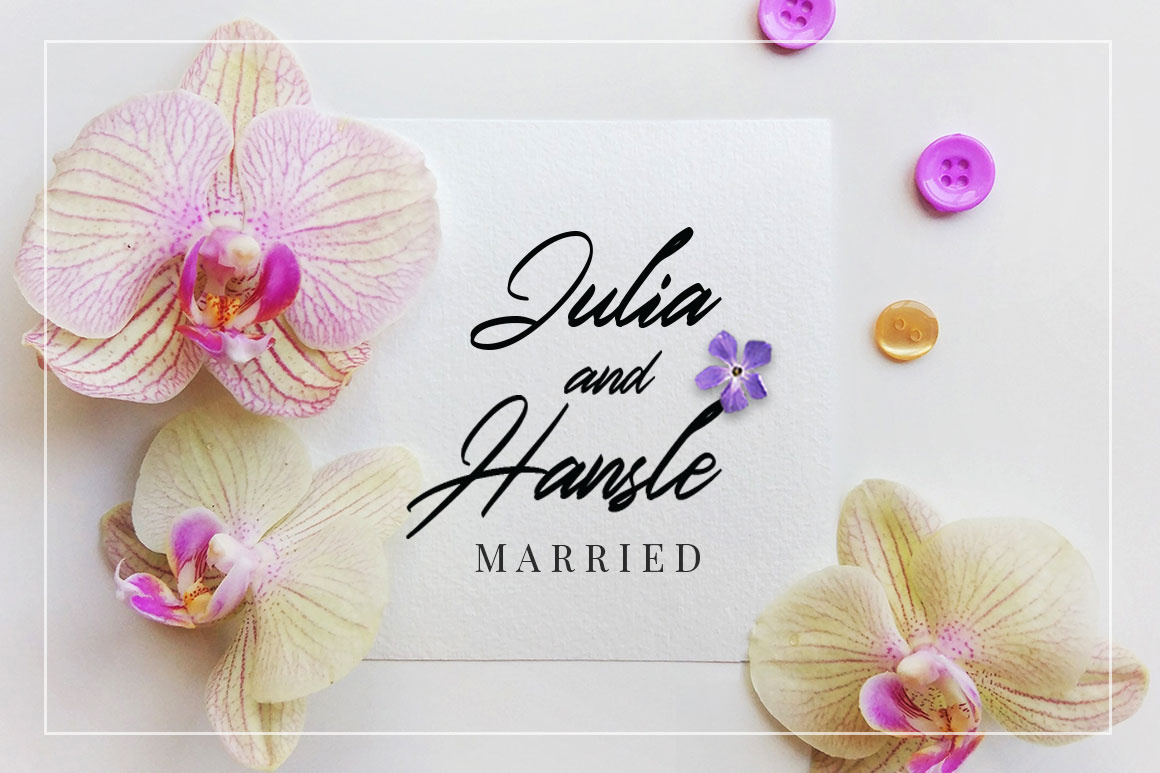
Wedding Beautiful Typeface
new fashionable handwriting font and super cool with sexy style. And also the Capital letters with contemporary and sophisticated accents. Italian Horskey Signature Handlettering Script offers beautiful typographic harmony for a diversity of design projects, including logos & branding, wedding designs, signature, social media posts, advertisements & product designs.